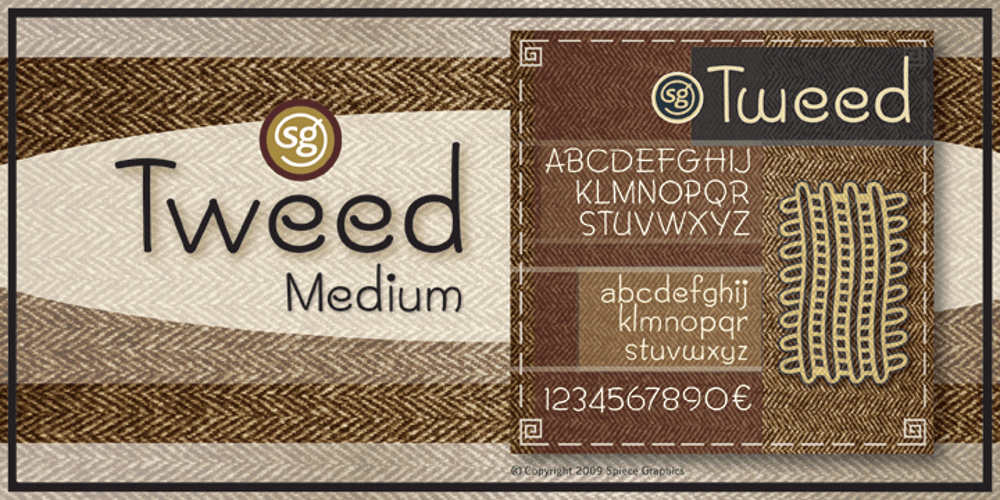
Tweed SG Font Family was designed by Jim Spiece and published by Spiece Graphics. Tweed SG contains 1 styles and family package options. Tweed is a journey into the 1930s world of hand-lettering. The design looks very much like the personal scribblings of an old-fashioned cartoon animator. It’s the sort of sketch-style you might find describing a goofy caterpillar or laughing willyworm. Tweed is fun and light-hearted with open and rounded letters of a somewhat musical quality. Derived from old letterforms popularized by Carl Holmes in his wonderful book on the subject, Tweed is basically friendly in nature. This typeface is great for personal greeting cards and stationery – any kind of casual correspondence. It works well in display situations, too. And yes, there is an alternate to the funny-looking “w” character. Just press option l (el) on Mac. Or Alt 0172 on Windows. Tweed is now available in the OpenType Std format. Some new stylistic alternates have been added to this OpenType version. Advanced features work in current versions of Adobe Creative Suite InDesign, Creative Suite Illustrator, and Quark XPress. Check for OpenType advanced feature support in other applications as it gradually becomes available with upgrades.